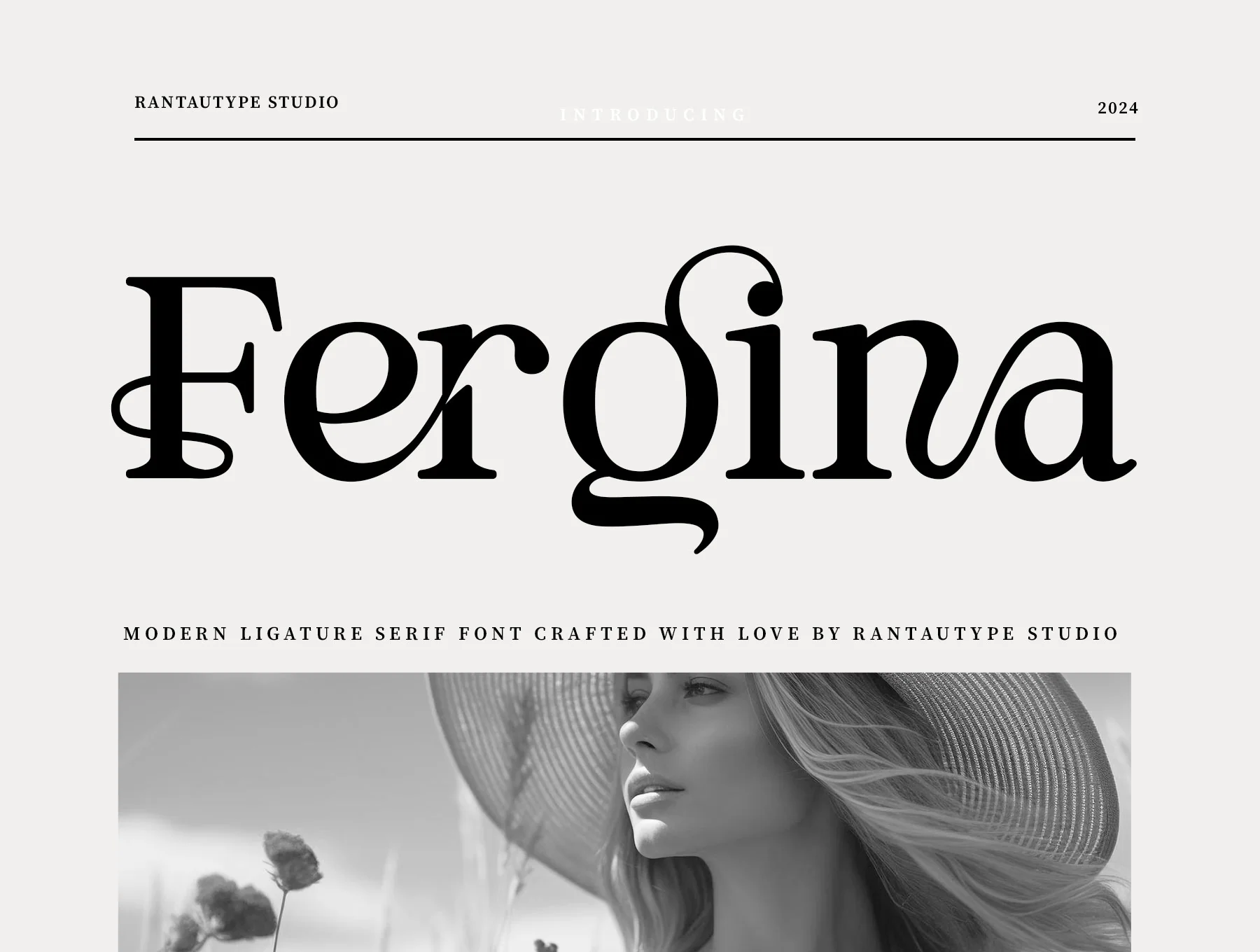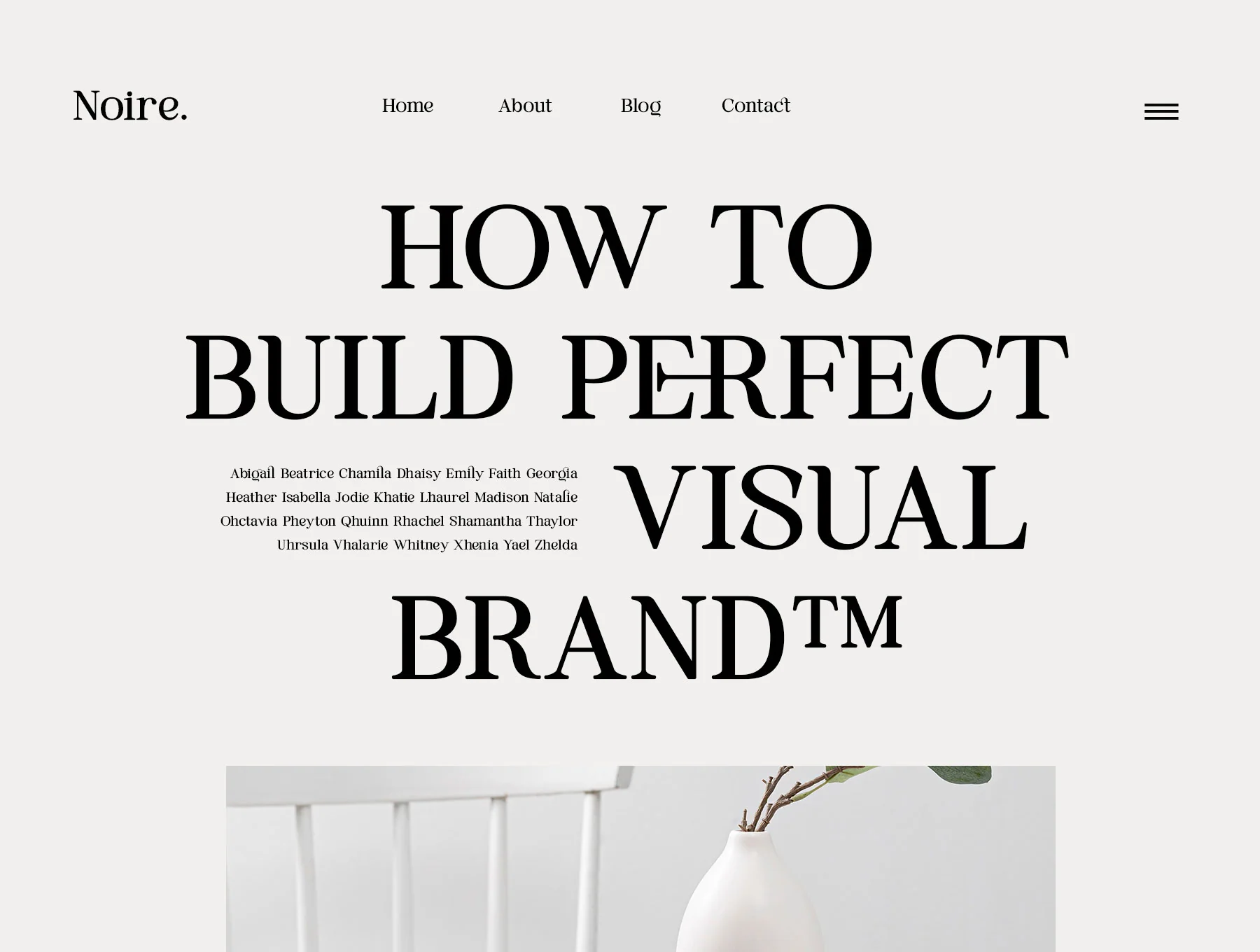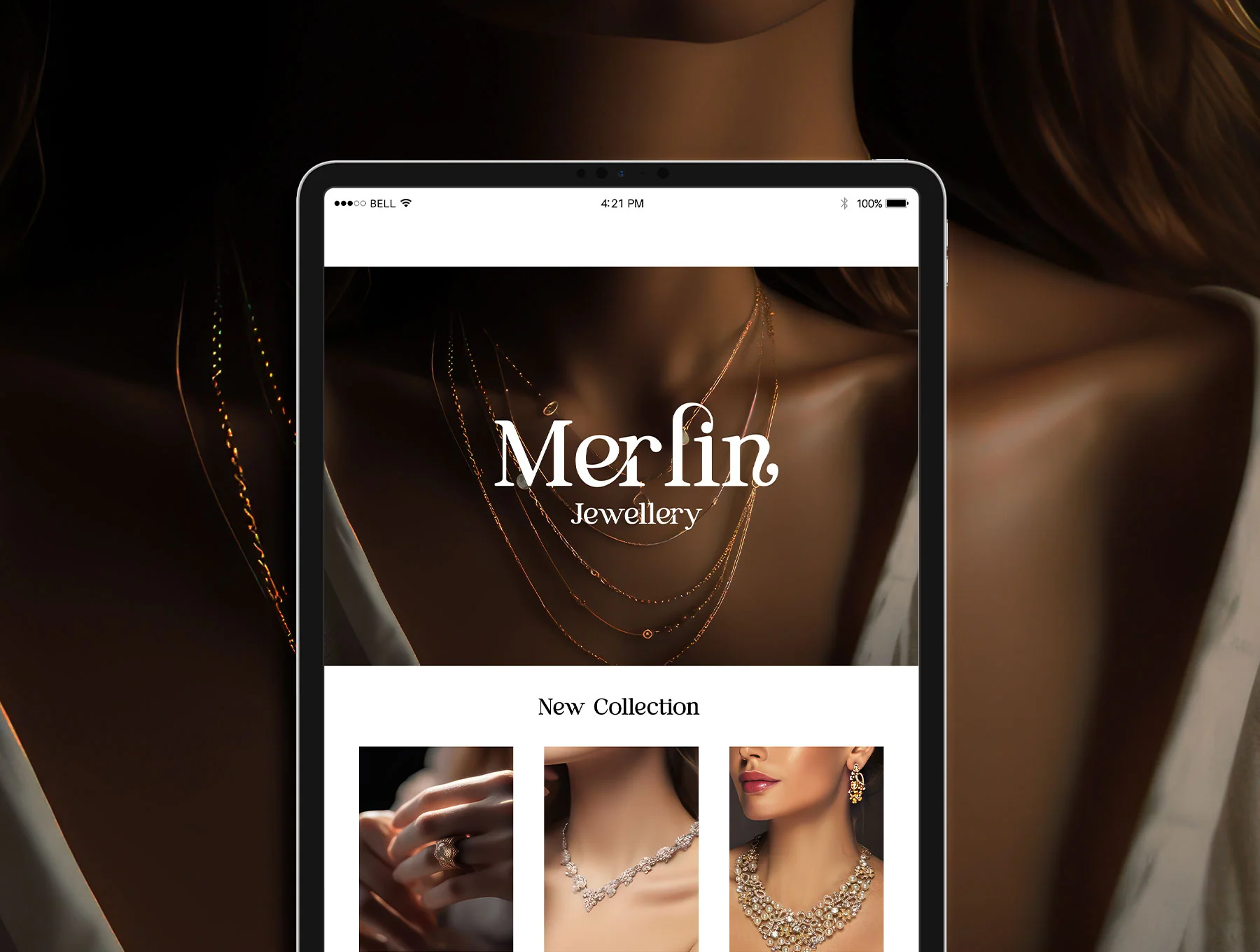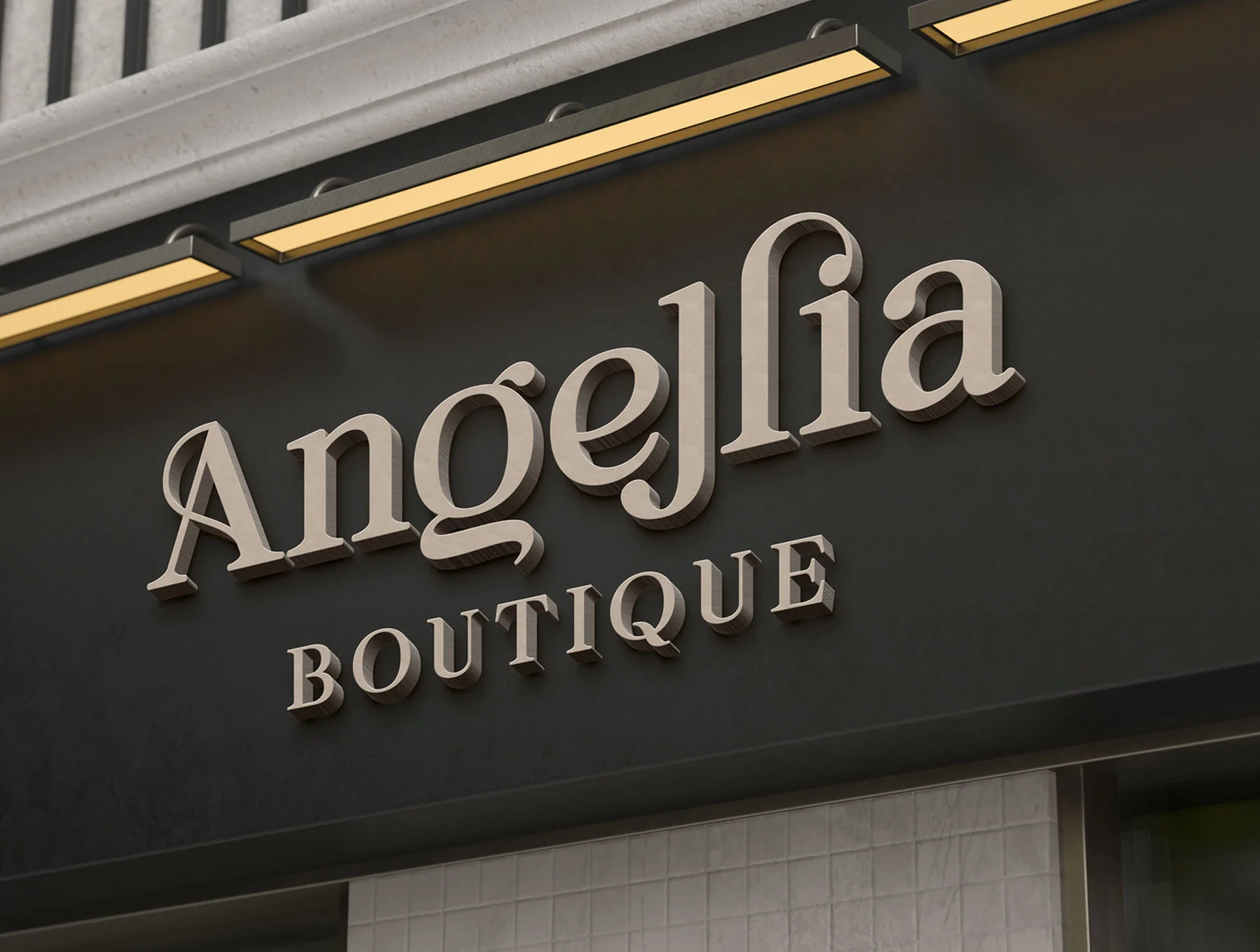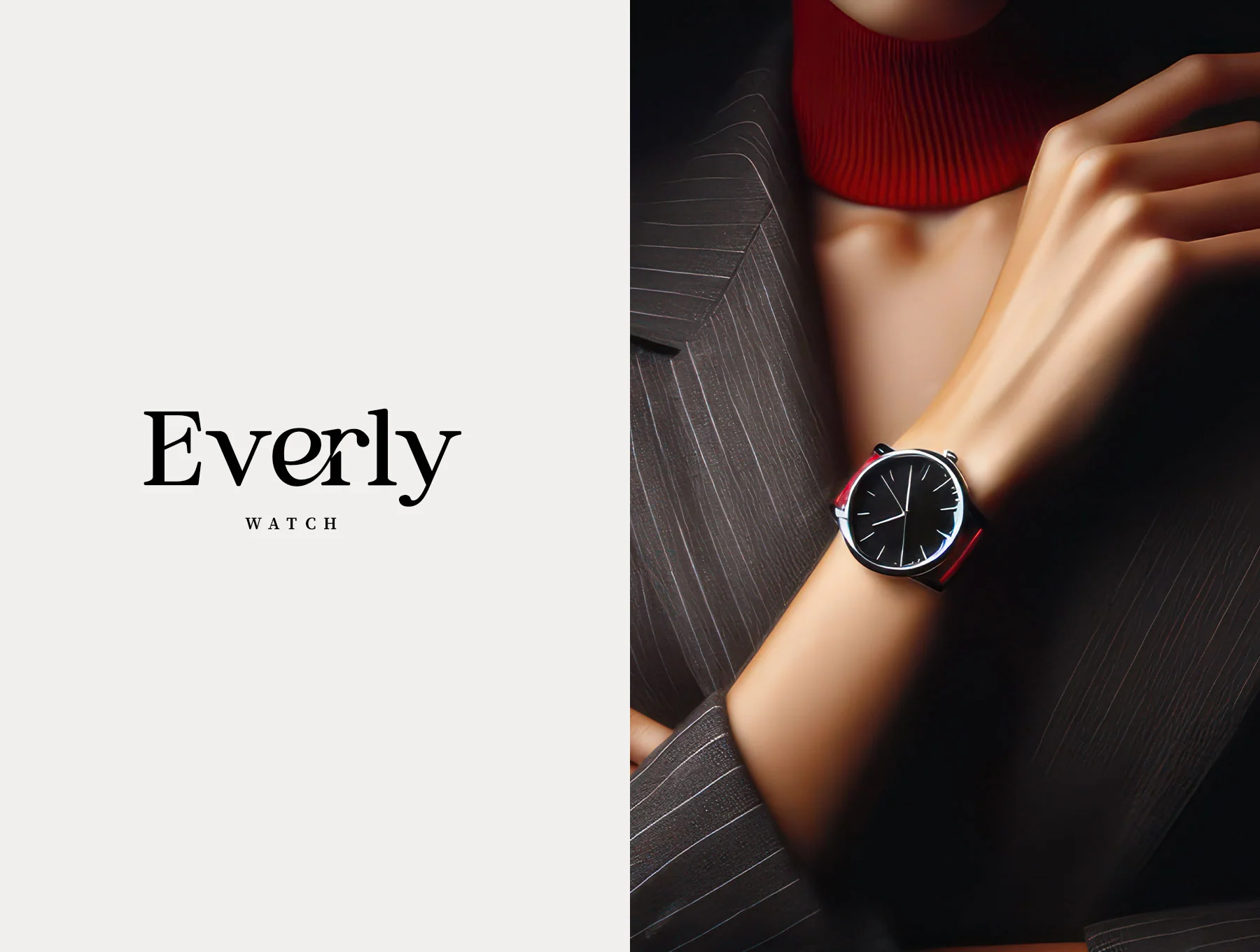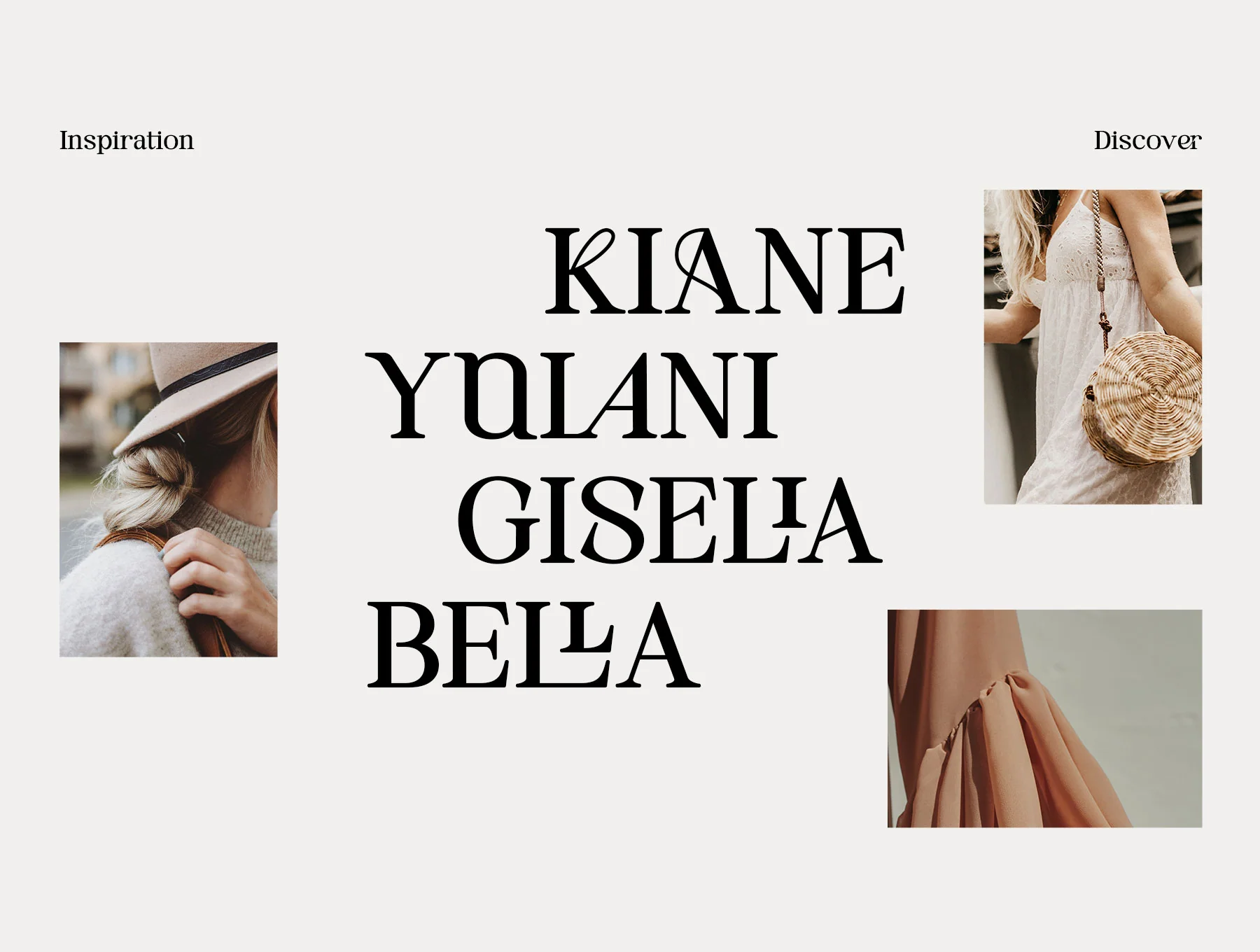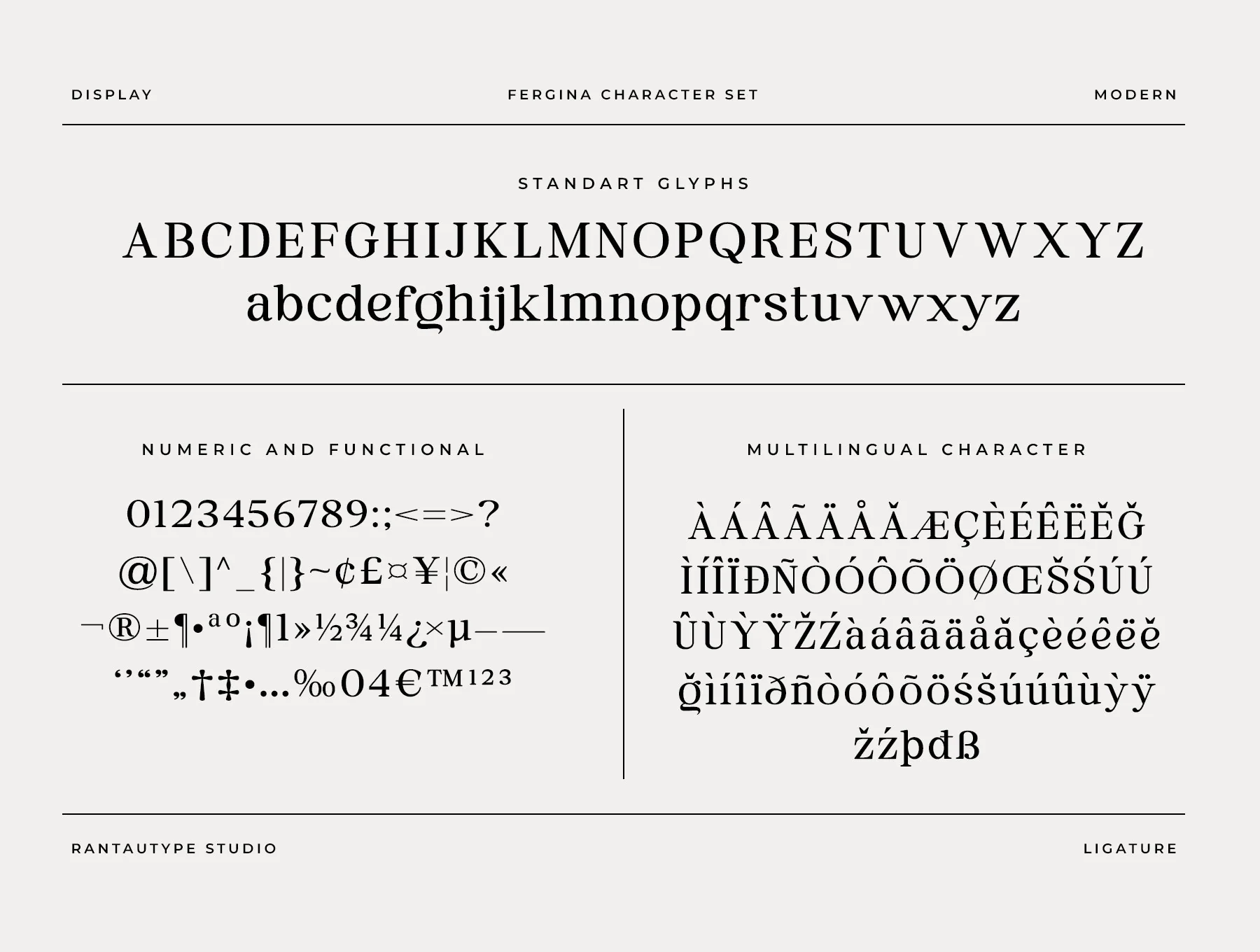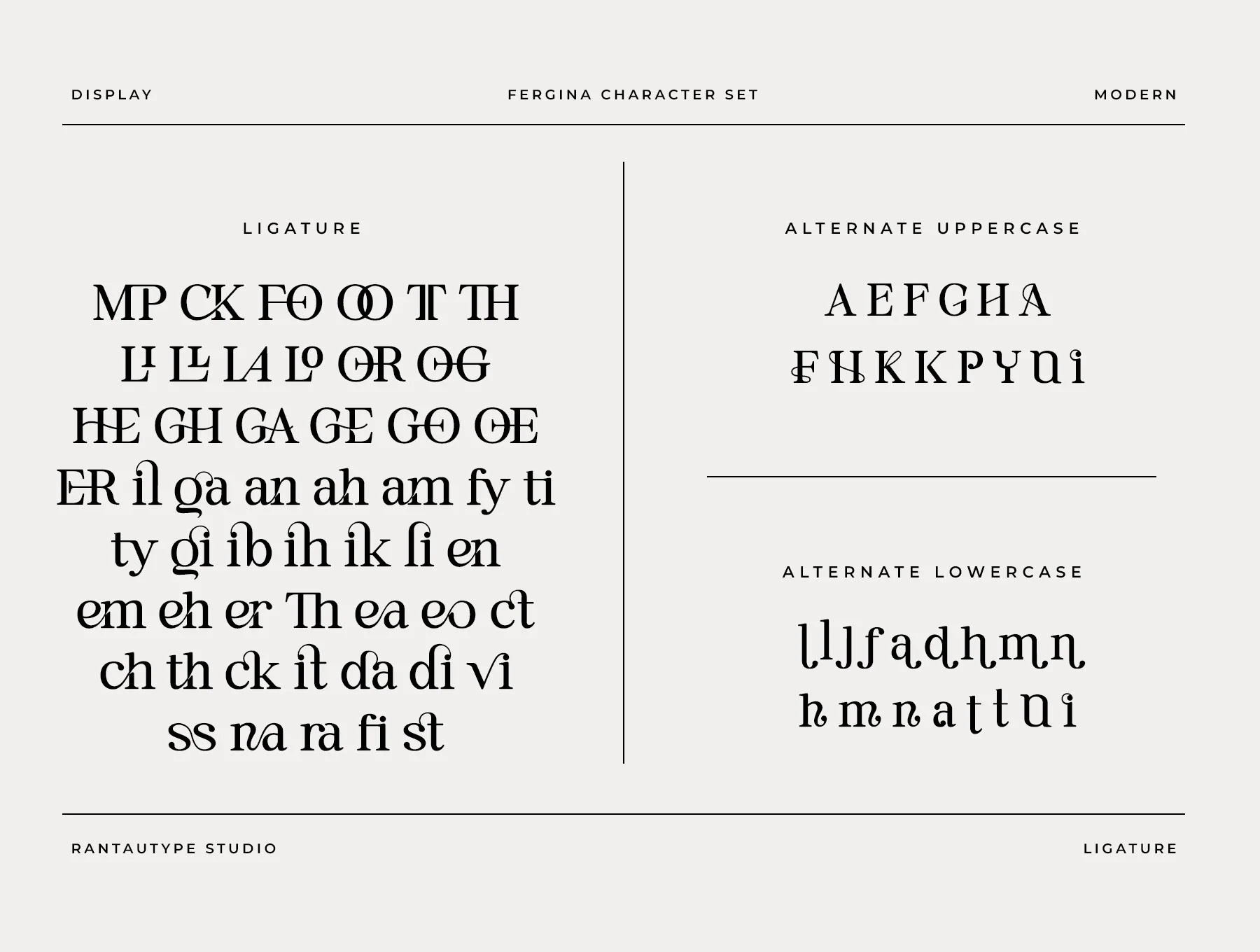
Fergina Modern Ligature Font
Fergina Contemporary Ligature Typeface
Standard character glyph set
Numeral and utility symbols
Alternate characters plus ligatures
Fergina is a contemporary serif typeface with 50+ ligatures, giving designs a refined, eye-catching look. Ideal for logos, ads, photo marks, stationery, branding, magazines, invitations, labels, products, and business visuals. Includes OTF, TTF, WOFF, standard glyphs, numerals, alternates, ligatures, multilingual support, easy install, and use on PC/Mac in Adobe apps and Word.